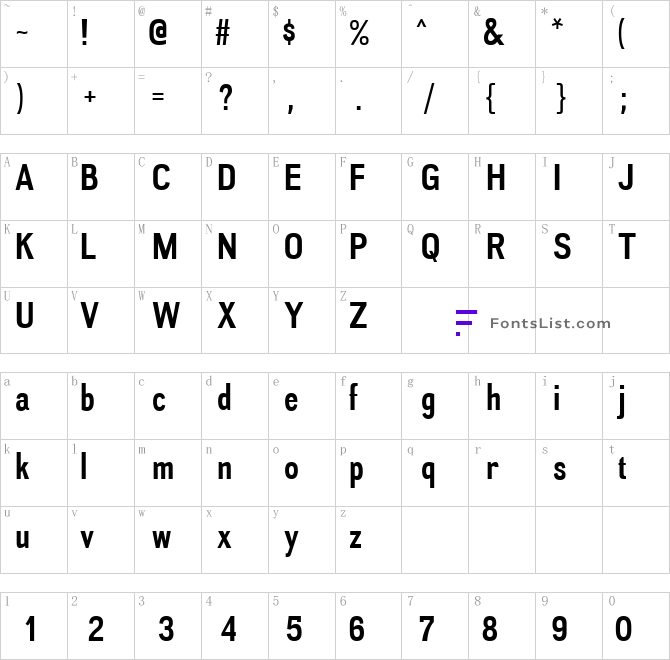
- Font Name:Akazan
Akazan-Bold.ttf is a very beautiful artistic font, Akazan-Bold.ttf is widely used in the design and printing of various books and pictures,Akazan-Bold.ttf has a strong visual impact,Akazan-Bold.ttf is a commonly used font in newspapers, magazines and books, and is used in posters, e-commerce Poster design, store design, logo design, font design and other fields.Akazan-Bold.